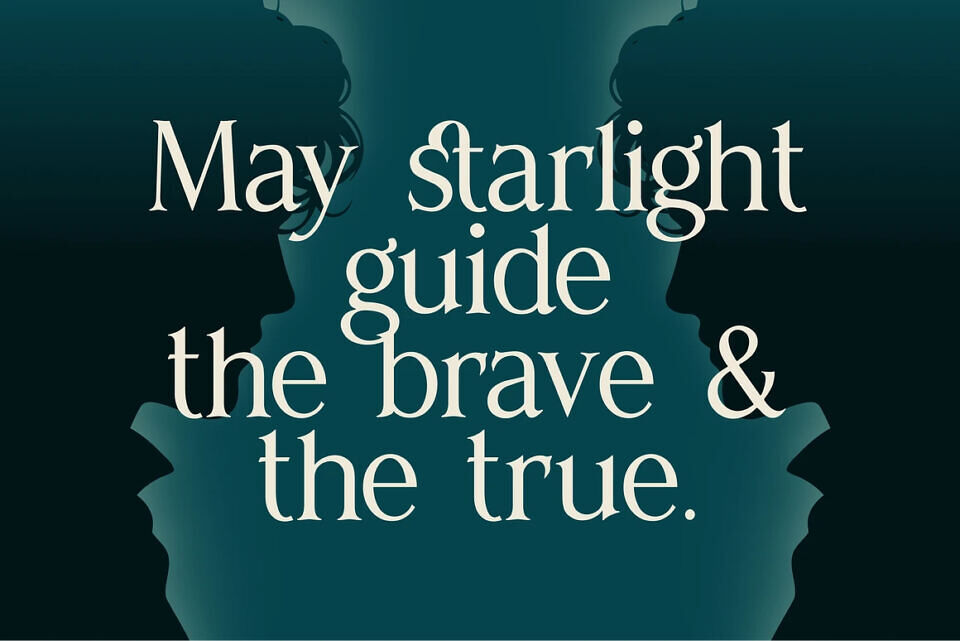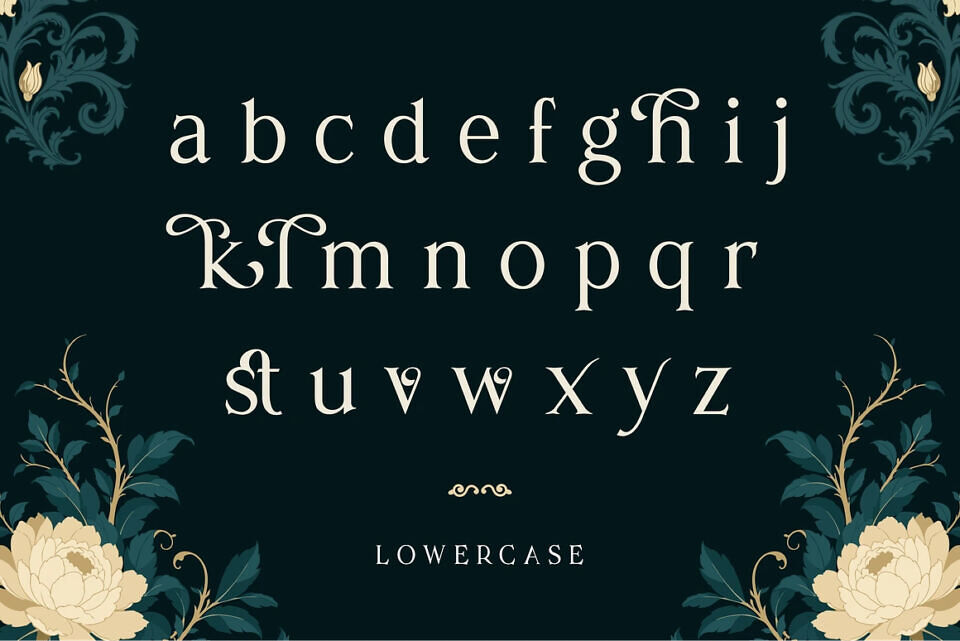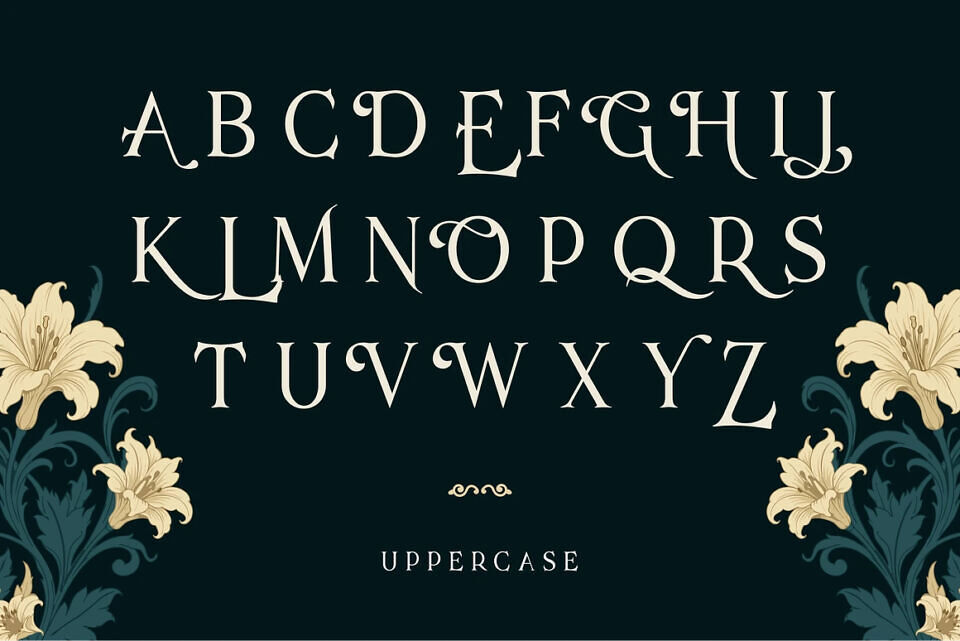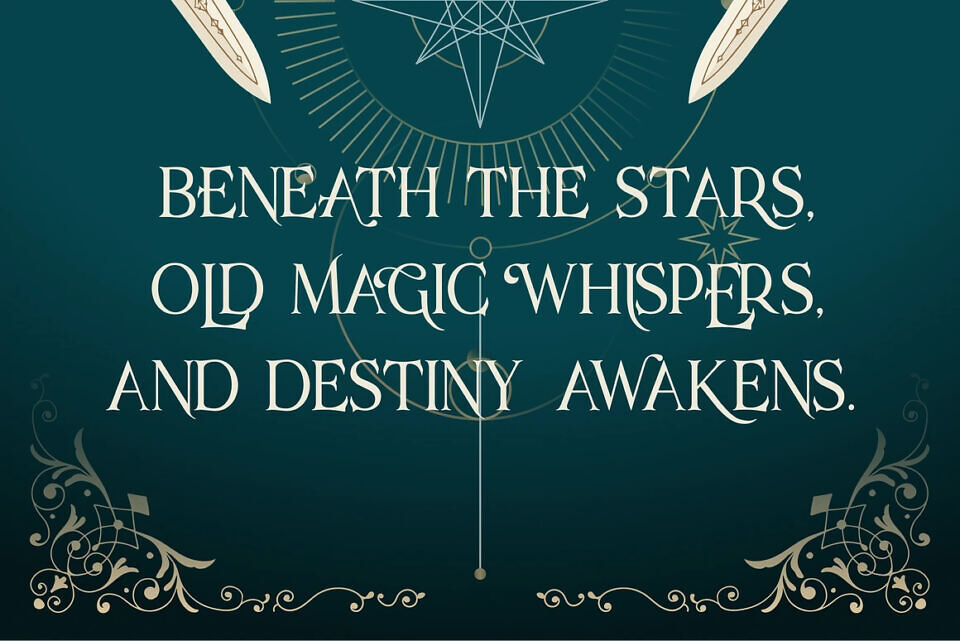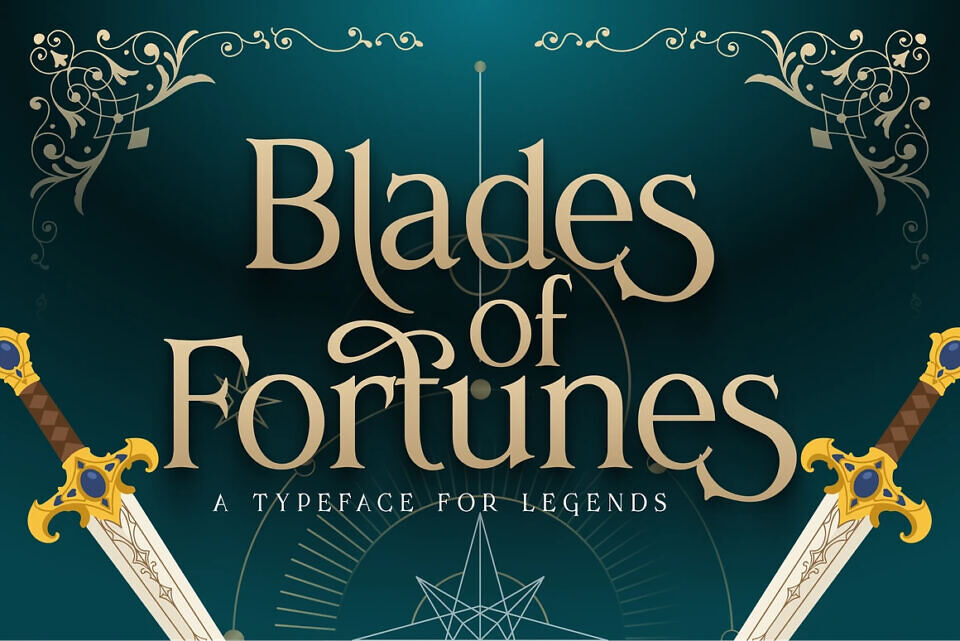
Blades Of Fortunes Font
Indulge in elegant sophistication with Blades of Fortunes, a finely crafted display serif typeface. Bask in its striking stroke contrast, bewitching swashes, and crisp terminals.
Whether you’re crafting a mysterious fantasy book cover, building an intriguing RPG brand identity or crafting dynamic cinematic titles, Blades of Fortunes breathes an air of grandeur into your designs, ensuring they capture attention and spark imagination.